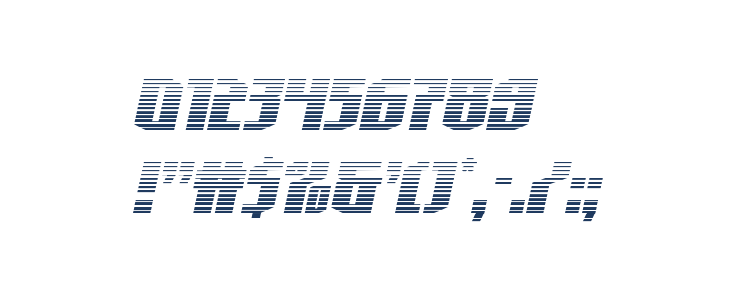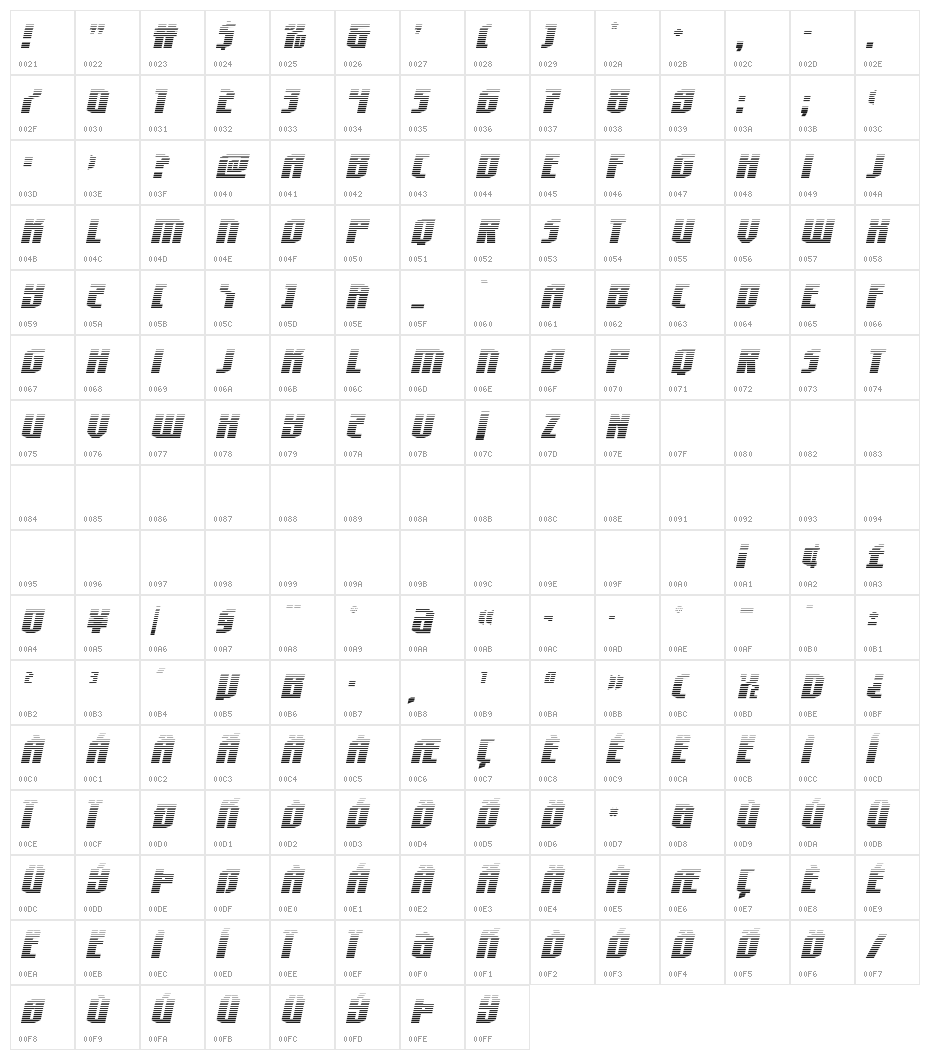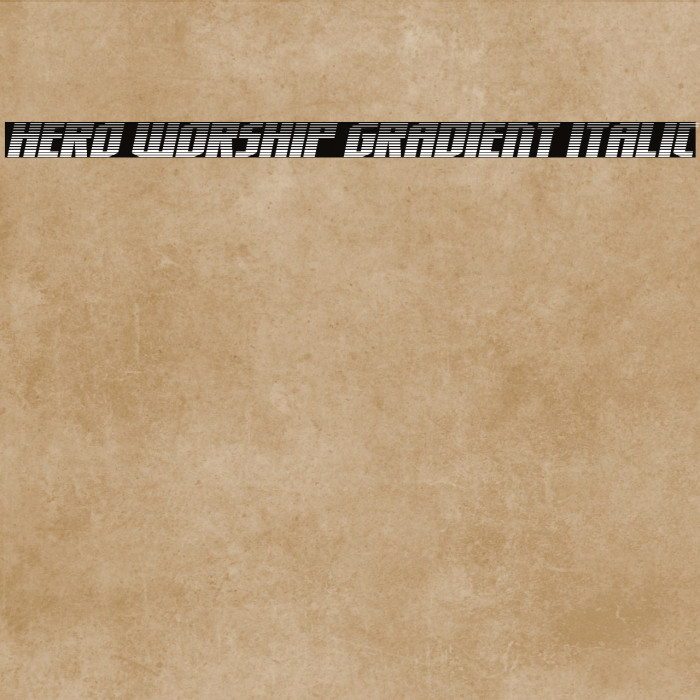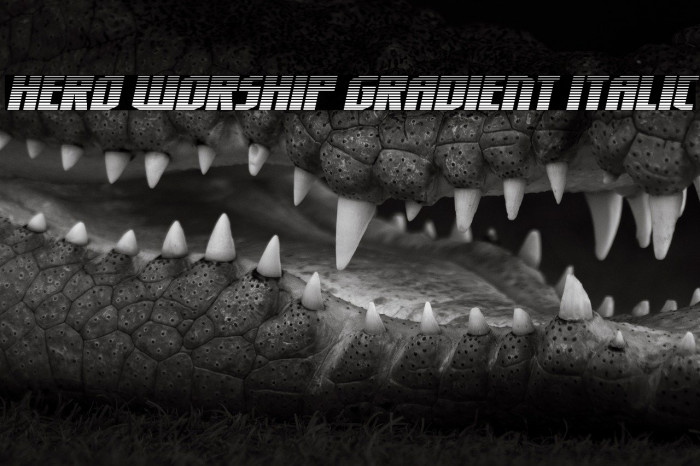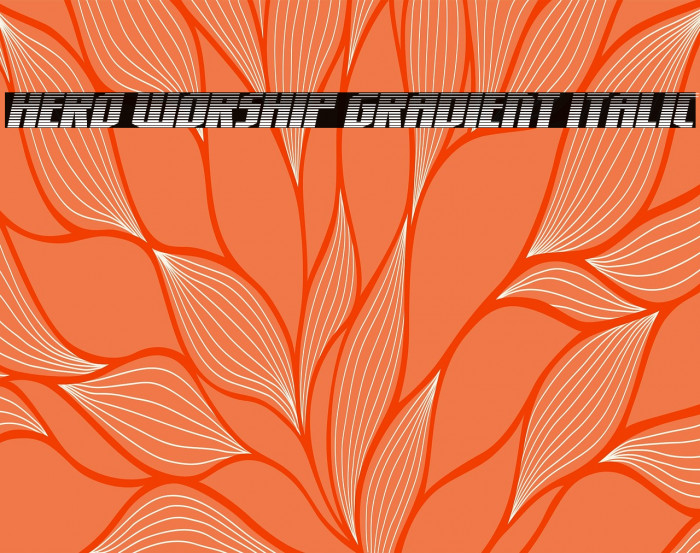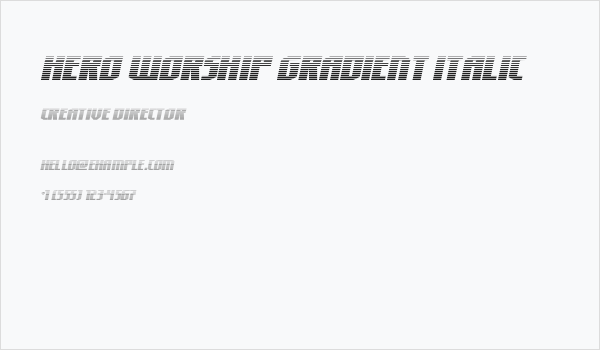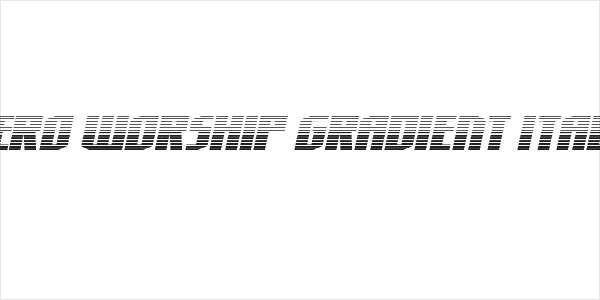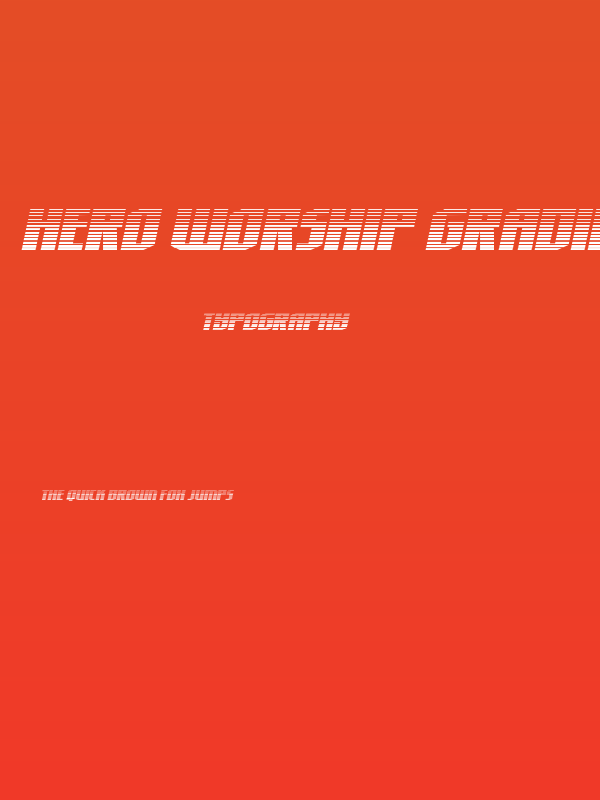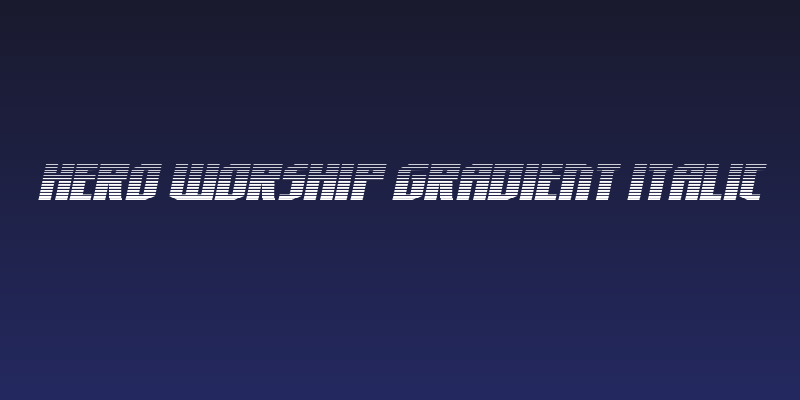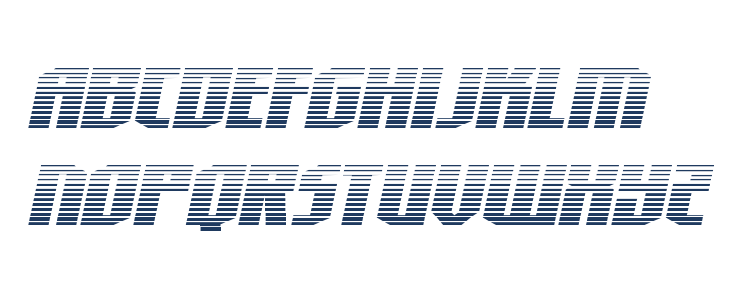
Hero Worship Gradient Italic Font
Hero Worship Gradient Italic Description
This font features a bold, italicized style with a distinct gradient effect that gives each character a dynamic, three-dimensional appearance. The letters are constructed with horizontal lines that create a sense of movement and energy, making it highly suitable for attention-grabbing designs. The uppercase and lowercase letters maintain a consistent slant, enhancing the italicized look. The numbers and special characters follow the same design principles, ensuring uniformity across all elements. This font is perfect for projects that require a modern and edgy aesthetic.
| Proposed Projects | Ideal for sports branding, futuristic posters, video game titles, and dynamic advertising campaigns. |